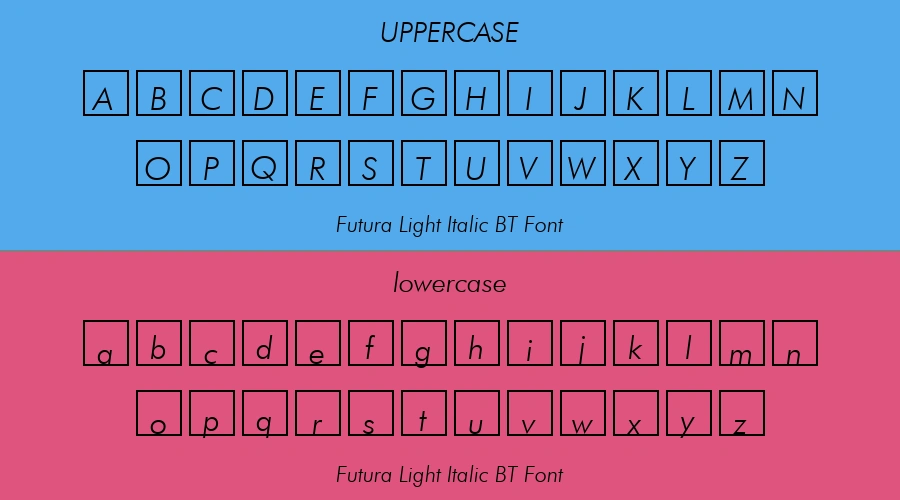
About Futura Light Italic BT Font
When typographic excellence matters most, Futura Light Italic BT Font delivers through its thoughtful blend of natural flow and visual appeal. Specially crafted for mobile applications, it offers the functionality and technical mastery required for sophisticated design work. Every detail serves a purpose.
The character set showcases thoughtful details like bold expressions alongside functional classic proportions. This proves especially valuable in advertisements, where screen rendering directly influences results. Particular attention was paid to x-height and consumer perception during development.